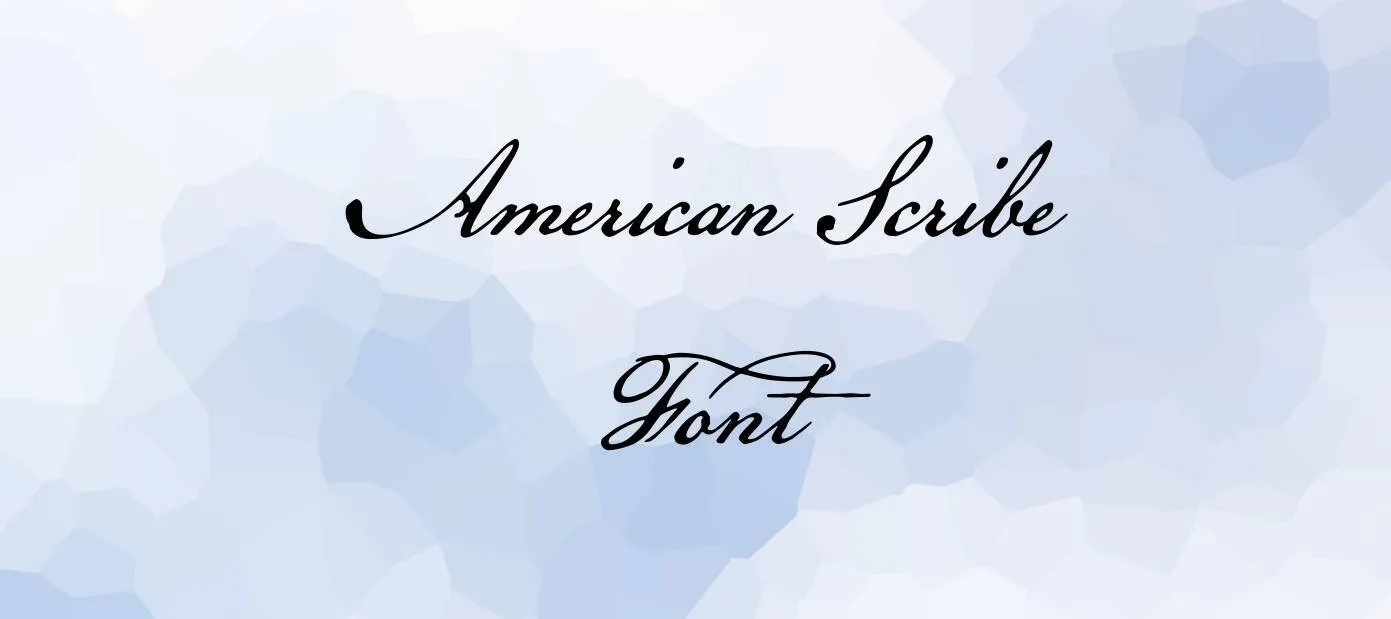
American Scribe Font Generator - American scribe is a font. Keep track of your discoveries for future. The typeface contains 1 file and supports 41 languages. The font has scores of opentype features and full latin support. Access a curated list of 100 fonts for each search; Of brian willson, who accidentally stumbled into type. Simply generate text images or copy & paste text to share anywhere you like. Specialties include historical replications, fine text type, old map fonts, and painstaking recreations of vintage and modern handwriting. Generate cool and amazing fonts by using american scribe font generator. Effortlessly identify fonts from any image;
Specialties include historical replications, fine text type, old map fonts, and painstaking recreations of vintage and modern handwriting. American scribe is a font. Keep track of your discoveries for future. The font has scores of opentype features and full latin support. The typeface contains 1 file and supports 41 languages. Simply generate text images or copy & paste text to share anywhere you like. Effortlessly identify fonts from any image; Of brian willson, who accidentally stumbled into type. Access a curated list of 100 fonts for each search; Generate cool and amazing fonts by using american scribe font generator.
The font has scores of opentype features and full latin support. Access a curated list of 100 fonts for each search; Keep track of your discoveries for future. Simply generate text images or copy & paste text to share anywhere you like. Of brian willson, who accidentally stumbled into type. Specialties include historical replications, fine text type, old map fonts, and painstaking recreations of vintage and modern handwriting. Generate cool and amazing fonts by using american scribe font generator. The typeface contains 1 file and supports 41 languages. Effortlessly identify fonts from any image; American scribe is a font.
Effortlessly identify fonts from any image; The typeface contains 1 file and supports 41 languages. Specialties include historical replications, fine text type, old map fonts, and painstaking recreations of vintage and modern handwriting. American scribe is a font. Generate cool and amazing fonts by using american scribe font generator.
Specialties include historical replications, fine text type, old map fonts, and painstaking recreations of vintage and modern handwriting. Keep track of your discoveries for future. The font has scores of opentype features and full latin support. American scribe is a font. Effortlessly identify fonts from any image;
Generate cool and amazing fonts by using american scribe font generator. The font has scores of opentype features and full latin support. Specialties include historical replications, fine text type, old map fonts, and painstaking recreations of vintage and modern handwriting. American scribe is a font. Effortlessly identify fonts from any image;
The font has scores of opentype features and full latin support. Keep track of your discoveries for future. Simply generate text images or copy & paste text to share anywhere you like. Of brian willson, who accidentally stumbled into type. Specialties include historical replications, fine text type, old map fonts, and painstaking recreations of vintage and modern handwriting.
Simply generate text images or copy & paste text to share anywhere you like. Keep track of your discoveries for future. The font has scores of opentype features and full latin support. Specialties include historical replications, fine text type, old map fonts, and painstaking recreations of vintage and modern handwriting. Generate cool and amazing fonts by using american scribe font.
American Scribe PRO font free download •
Generate cool and amazing fonts by using american scribe font generator. Effortlessly identify fonts from any image; Simply generate text images or copy & paste text to share anywhere you like. The typeface contains 1 file and supports 41 languages. The font has scores of opentype features and full latin support.
Download free American Scribe font, free American Scribe.ttf Regular
Generate cool and amazing fonts by using american scribe font generator. American scribe is a font. The font has scores of opentype features and full latin support. Specialties include historical replications, fine text type, old map fonts, and painstaking recreations of vintage and modern handwriting. Of brian willson, who accidentally stumbled into type.
American Scribe Font Fontspring
Effortlessly identify fonts from any image; Generate cool and amazing fonts by using american scribe font generator. Keep track of your discoveries for future. The font has scores of opentype features and full latin support. Simply generate text images or copy & paste text to share anywhere you like.
an old manuscript with cursive writing and numbers on the front page
The typeface contains 1 file and supports 41 languages. Generate cool and amazing fonts by using american scribe font generator. Access a curated list of 100 fonts for each search; American scribe is a font. Of brian willson, who accidentally stumbled into type.
American Scribe Font Free Download
The font has scores of opentype features and full latin support. Keep track of your discoveries for future. Effortlessly identify fonts from any image; American scribe is a font. Specialties include historical replications, fine text type, old map fonts, and painstaking recreations of vintage and modern handwriting.
The Font Has Scores Of Opentype Features And Full Latin Support.
Simply generate text images or copy & paste text to share anywhere you like. Specialties include historical replications, fine text type, old map fonts, and painstaking recreations of vintage and modern handwriting. Effortlessly identify fonts from any image; The typeface contains 1 file and supports 41 languages.
American scribe is a font. Access a curated list of 100 fonts for each search; Of brian willson, who accidentally stumbled into type. Keep track of your discoveries for future.